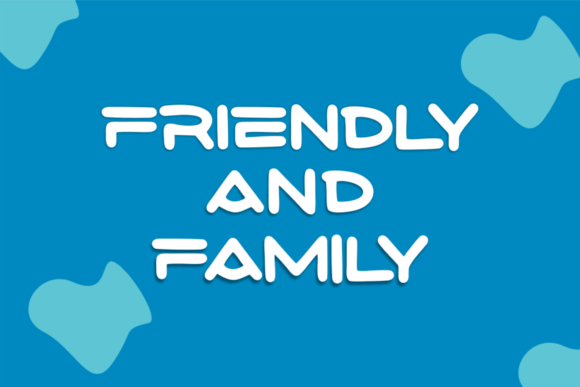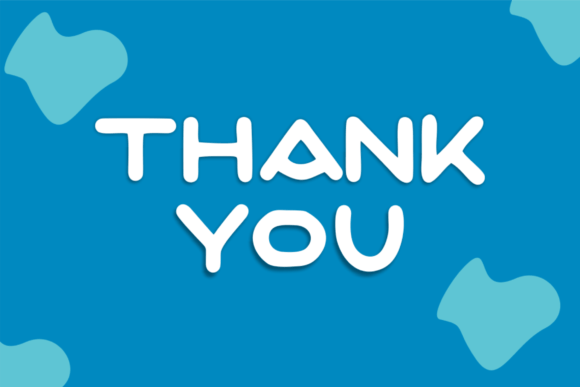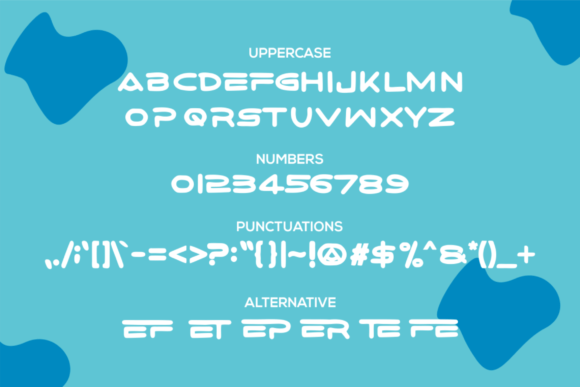
Unlocking Creativity with the Power of Typography
Have you ever been in the midst of a design project, staring at a blank canvas, and suddenly, an idea strikes? The world around you transforms, and your imagination runs wild. For designers, this moment is a thrill – and it’s all about finding the right tools to bring your vision to life. That’s where the Felixco Font comes in – a bold and authentic display font that’s about to take your creative game to the next level.
This versatile font is the perfect companion for any branding project, from logos to t-shirt printing, and even sports-related designs. Its wide range of applications makes it a valuable addition to any designer’s toolkit, offering endless possibilities to express your unique style. With Felixco Font, you’ll be able to tap into your creative potential and produce designs that truly stand out.
Felixco Font Key Features
- Unique Characteristics: The font features a distinctive, modern design with a mix of rounded and geometric shapes, making it ideal for use in creative and innovative projects.
Felixco Font Review
I’ve been experimenting with various fonts for a recent project, and the Felixco Font caught my eye. Here’s my honest review.
- Unique Design: The Felixco Font boasts a distinctive, quirky design that sets it apart from more common fonts.
- Legibility: Despite its unusual look, the font remains surprisingly legible, making it suitable for a wide range of applications.
- Customization Options: The font family offers a range of weights and styles, allowing for a high degree of customization.
- Limited Support: I encountered some issues with font rendering in older browsers and on certain devices.
- Lack of Consistency: While the font looks great on its own, it can be tricky to pair with other fonts without creating an inconsistent visual flow.
The Felixco Font is an interesting choice for designers looking to add some personality to their projects. While it may not be perfect, its unique design and customization options make it a solid option for those willing to experiment and adapt.
The Felixco font is ideal for creative projects, such as:
- Infographics
- Brochures
- Posters
- Brand identity materials